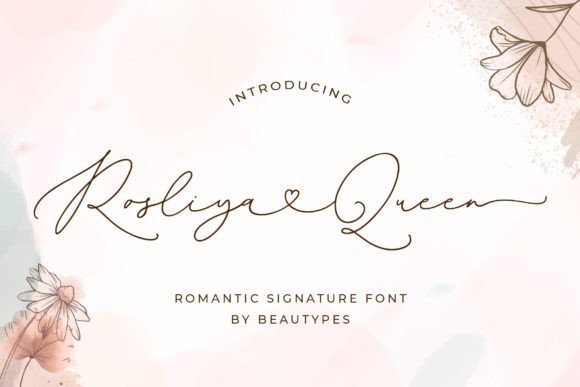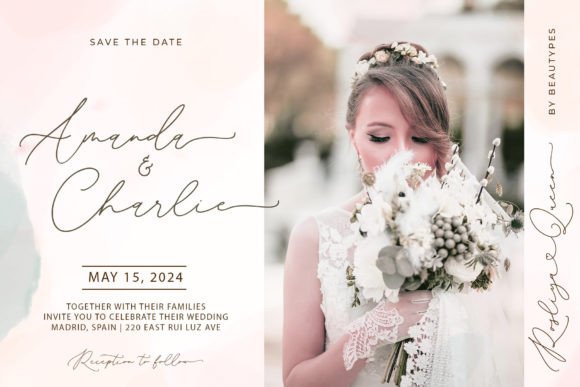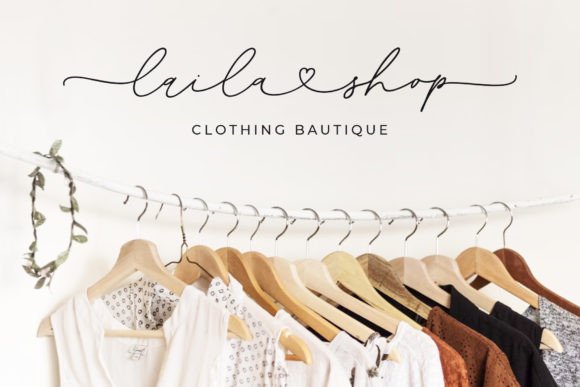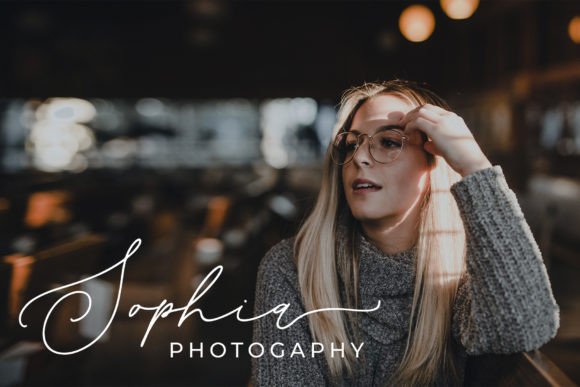
Rosliya Queen Font: Elegant Signature for Wedding Invitations & Branding
About the Rosliya Queen Font
Crafted with precision, the Rosliya Queen Font is ready to bring your ideas to life. Rosliya Queen is a gorgeous and elegant signature font. This font is neatly crafted and highly detailed. Whatever the topic, this font will be a wonderful asset to your font library, as it has the potential to enhance any creation.
Its elegant and highly detailed nature makes Rosliya Queen ideal for headlines, logos, and short-form text in branding materials, invitations, or certificates. The swashes add a touch of sophistication, but its intricacy makes it less suitable for body text or long paragraphs. Avoid using it in UI or situations requiring high readability at small sizes.
Rosliya Queen projects a refined and sophisticated personality. To complement this, consider pairing it with a clean sans-serif like Montserrat for body text or a geometric sans-serif like Futura for a more modern feel. For a contrasting yet harmonious look, a classic serif such as Garamond could also be effective.
For a touch of playfulness without sacrificing elegance, a carefully chosen script font could be used sparingly in conjunction with Rosliya Queen, but only in smaller secondary text applications.